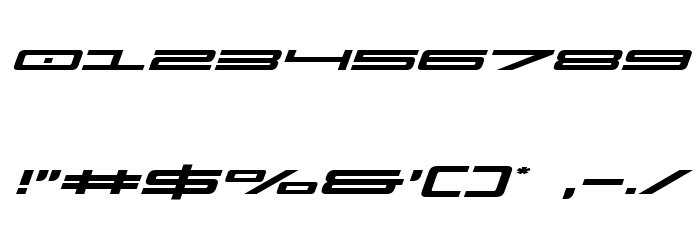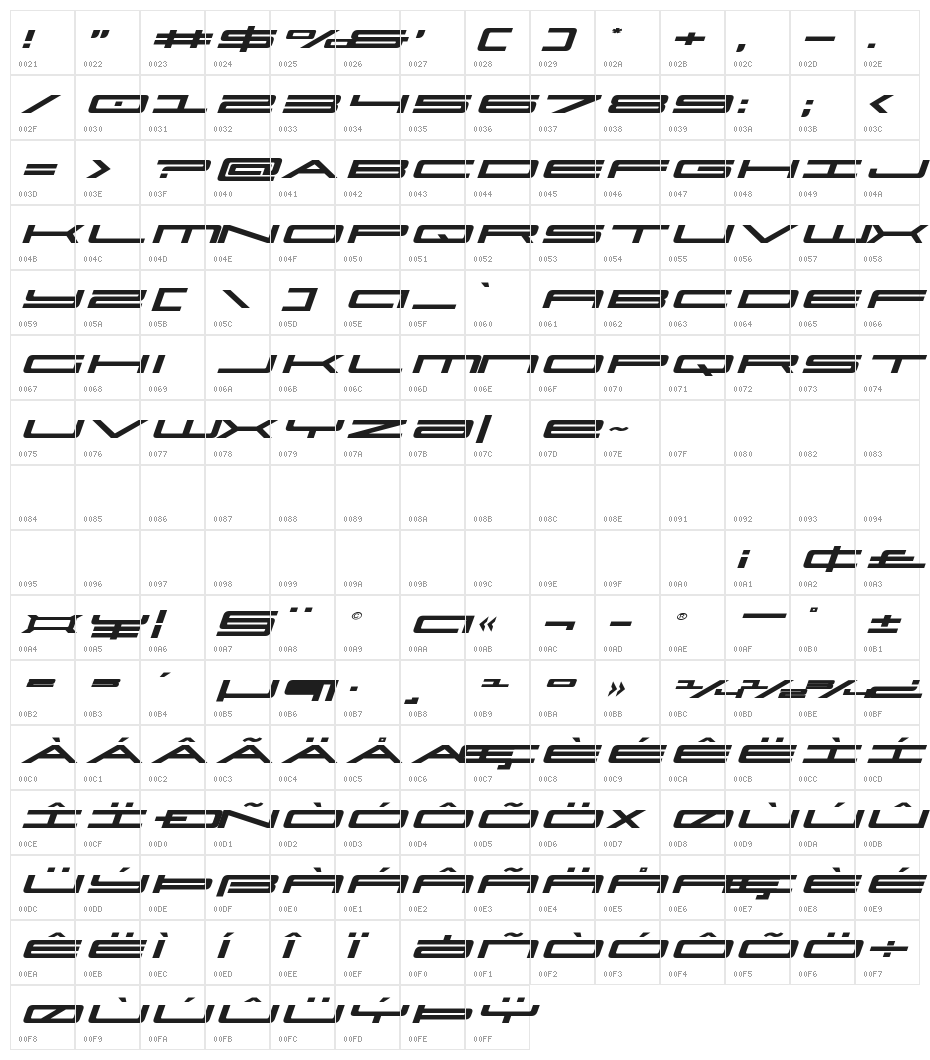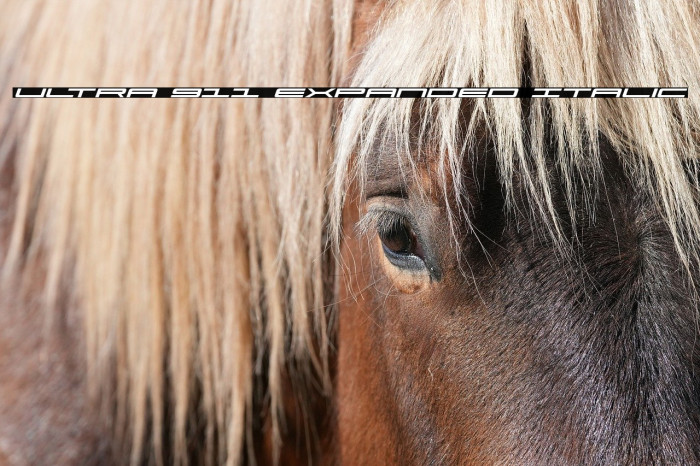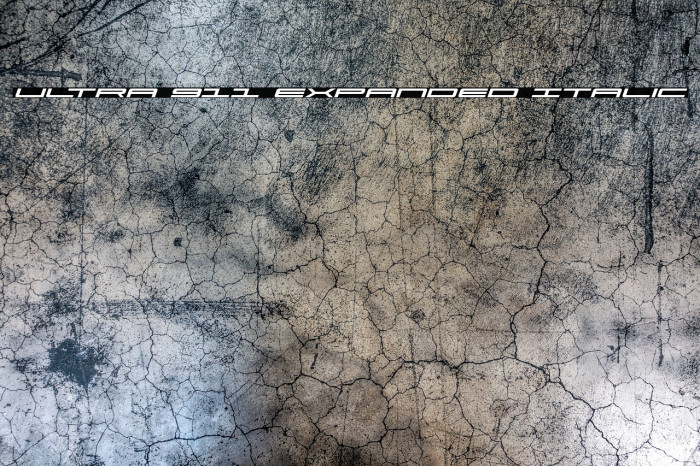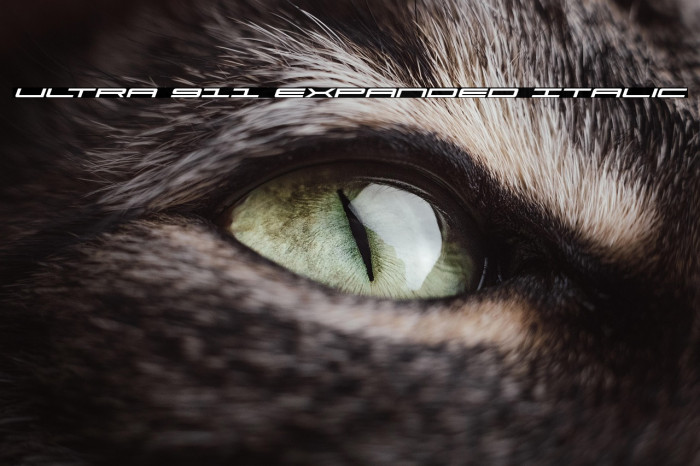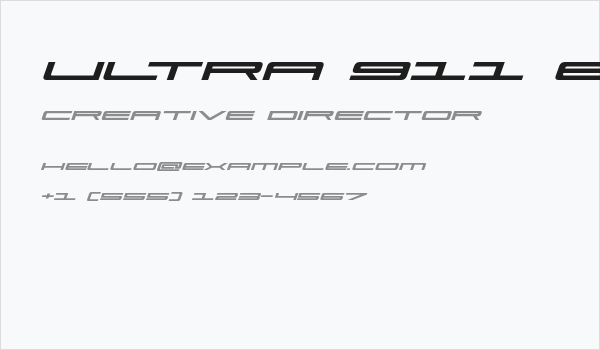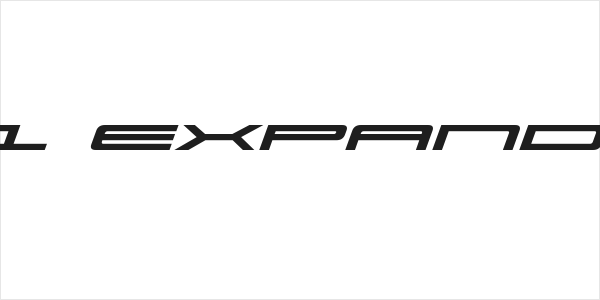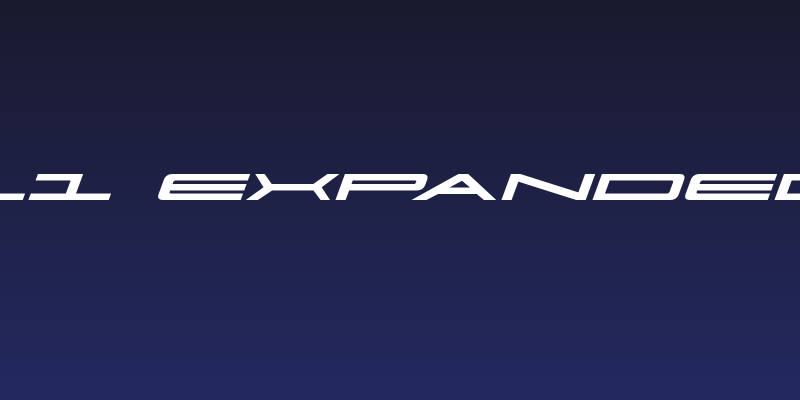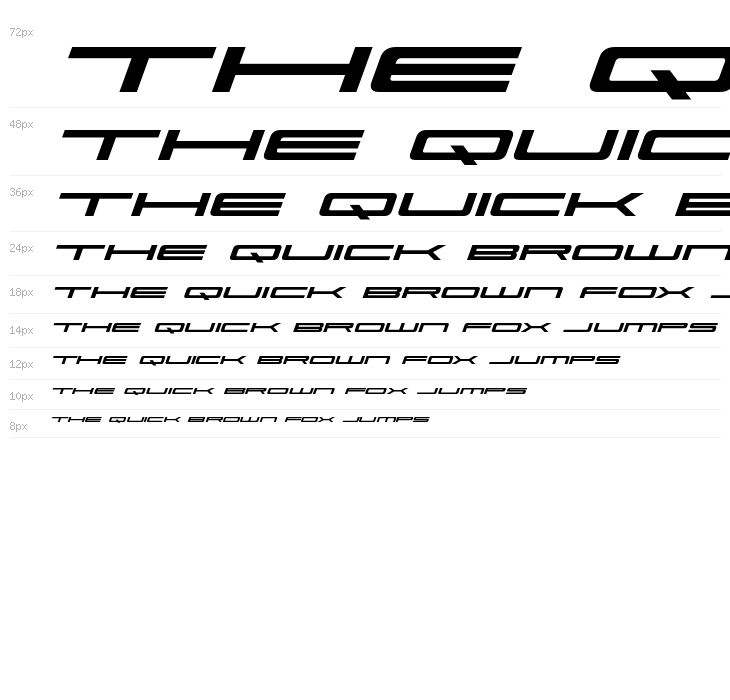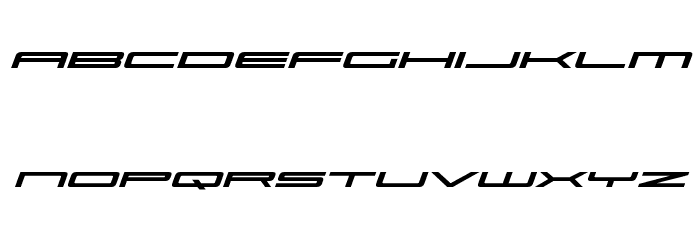
Ultra 911 Expanded Italic Font
Ultra 911 Expanded Italic Description
This font features a futuristic and sleek design with an italicized and expanded style. The characters are elongated with sharp angles, giving them a dynamic and fast-paced appearance. The strokes are consistent in thickness, providing a uniform look across all characters. The font's expanded width enhances readability while maintaining a modern aesthetic. It includes a full set of uppercase and lowercase letters, numbers, and a variety of special characters, making it versatile for different design needs.
| Use Case | Headlines, Logos, Digital Interfaces |
| Proposed Projects | Ideal for sci-fi themed projects, automotive branding, tech-related logos, and modern digital interfaces. |